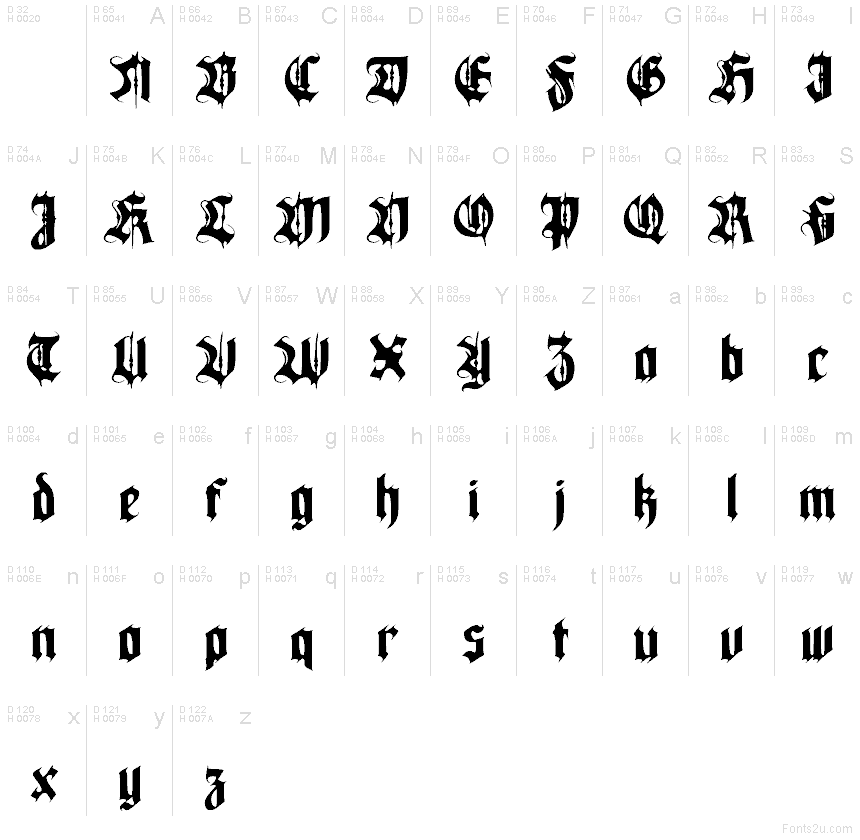
CSAspenDrawn-Regular Demo
CS Aspen Drawn font is a gothic-style font with a medieval style created by Craft Supply Co. The typeface boasts decorative elements with Fraktur-style letters known for their rich ornamental shapes typical of old Germanic books and texts. Every letter in this exquisite collection combines tradition and modernity through professional editing software.